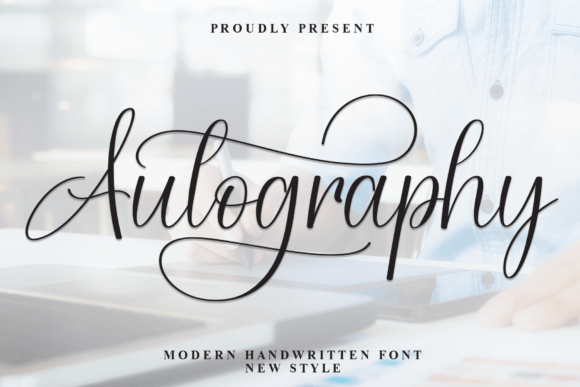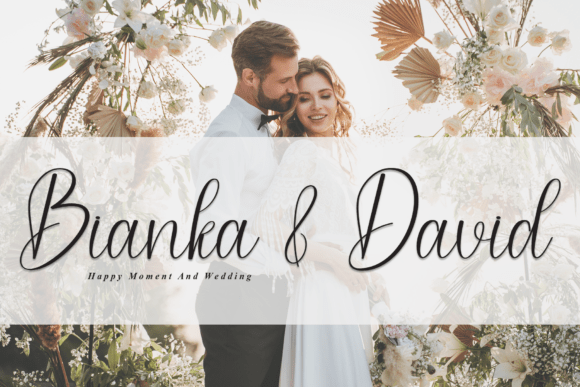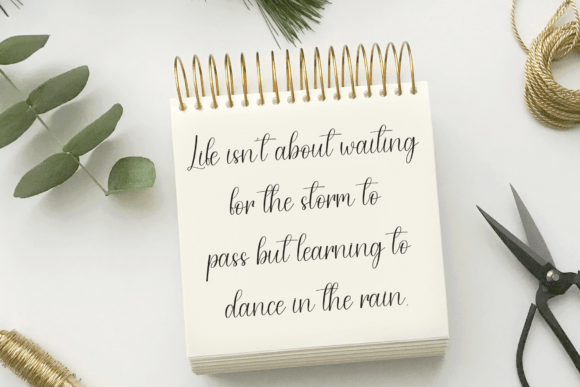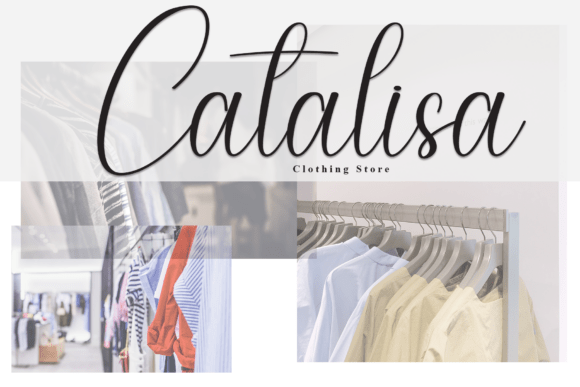
Autography Font: Elegant Script for Wedding & Social Media Design
About the Autography Font
Discover the charm of Autography Font. This font is a perfect blend of modern aesthetics and classic appeal. Elegant, flowing, and full of charm — this script font brings a touch of sophistication to any design. Perfect for weddings, branding, social media, and invitations, it features smooth curves and graceful swashes that elevate your text with a handwritten, romantic feel. Whether you’re crafting a signature logo or heartfelt quote, this font adds a personal and stylish flair.
Autography Font Usage Examples
Autography Font Example